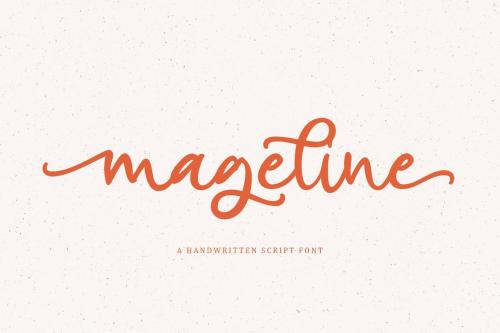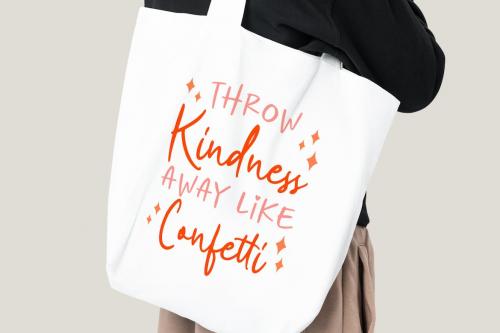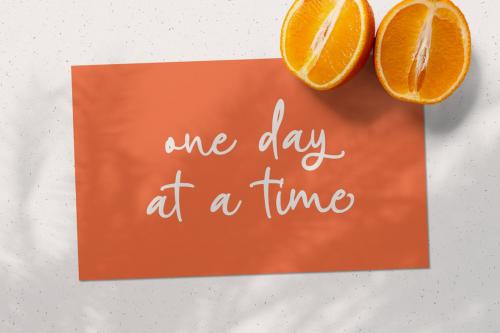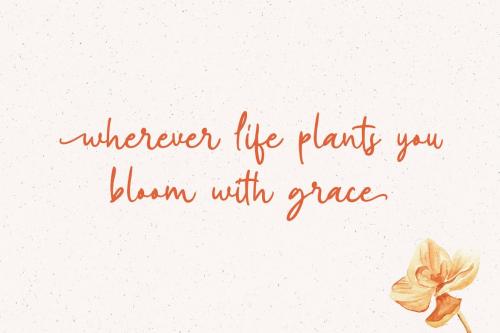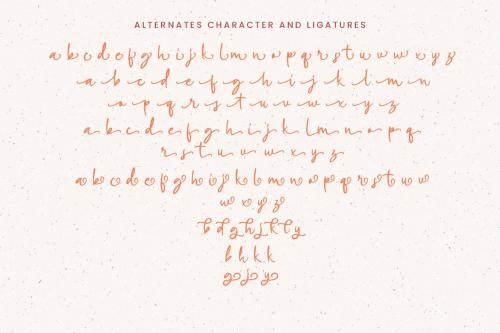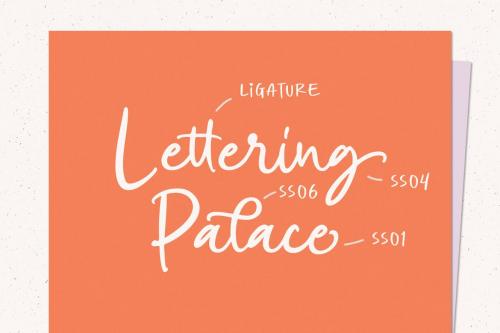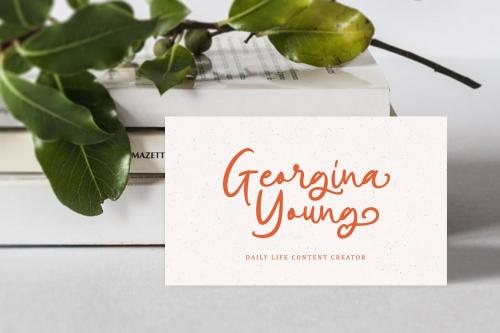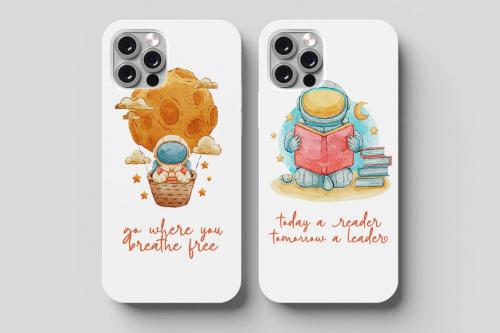
马格莱安字体
Mageline Font
Mageline is a beautiful modern calligraphy typeface. The swirls and swashes will make your project with feminine theme looks pretty even more. Very suitable to be used as headline, instagram post and stories, logos, magazines, books, greeting / wedding cards, packaging, fashion, make up, stationery, novels, labels or any type of advertising purpose.
Features :
uppercase & lowercase
numbers and punctuation
multilingual
ligatures
alternates
swashes
contextual alternate